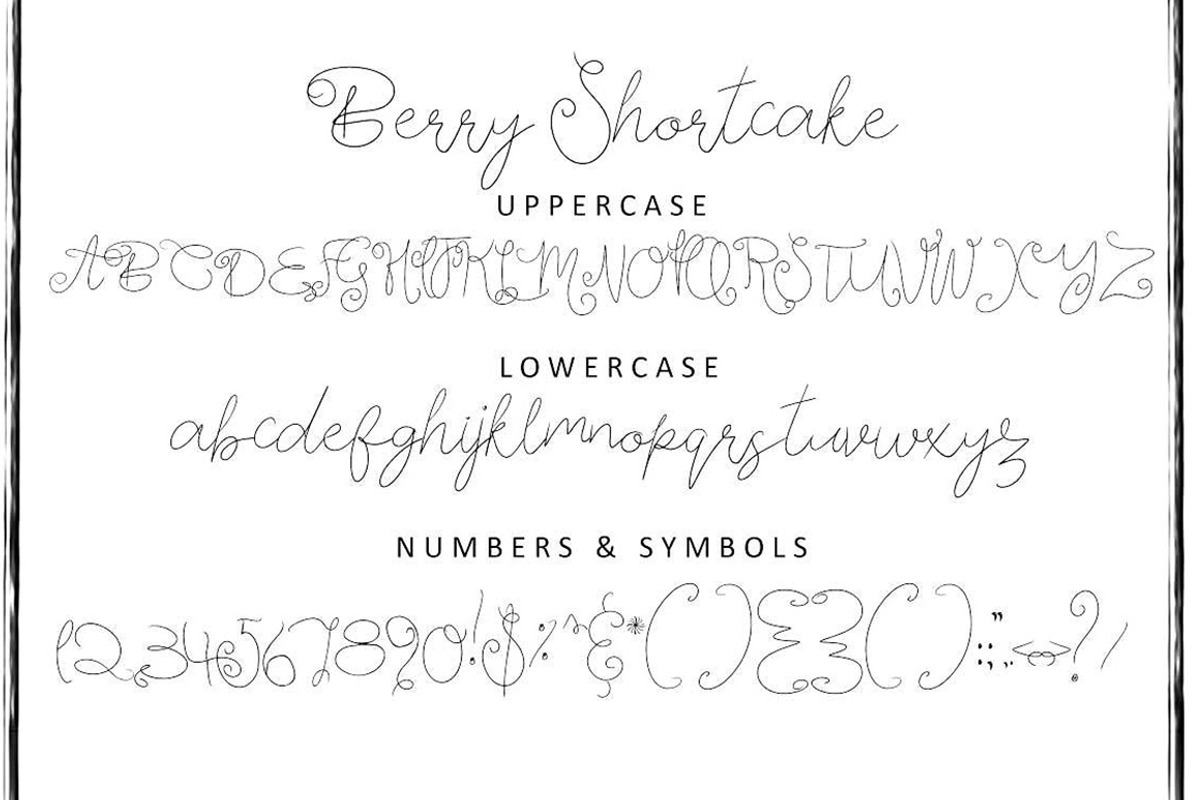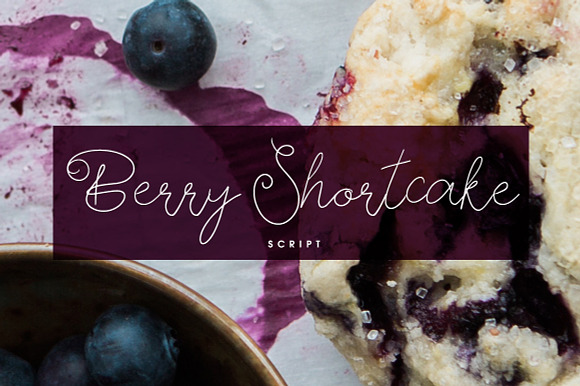
Berry Shortcake Font
This is Berry Shortcake. A beautiful fine script font. This font is part of the Big Bunch of Fonts Volume 2 here
Why Berry Shortcake Font is worth a look
Berry Shortcake Font by Creativeqube Design fits naturally into Branding, posters, packaging, typography.